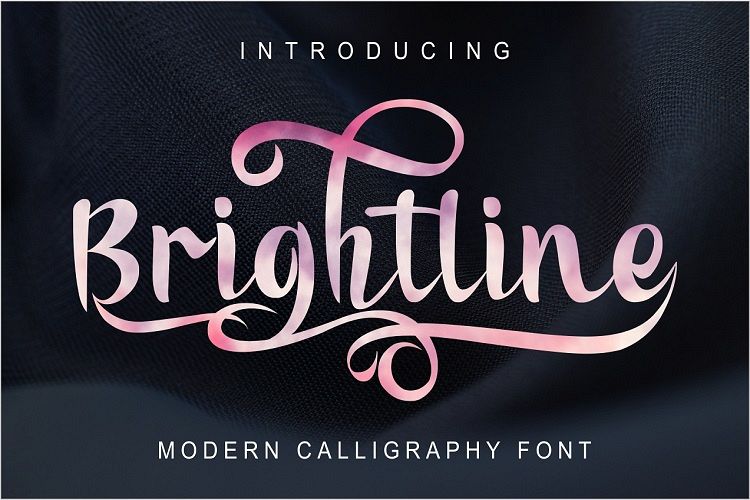
Brightline Modern Calligraphy
Brightline is a modern calligraphy font, it has been made for multipurpose aspecially for posters, banner, quotes, resto and cafe, food branding and more.